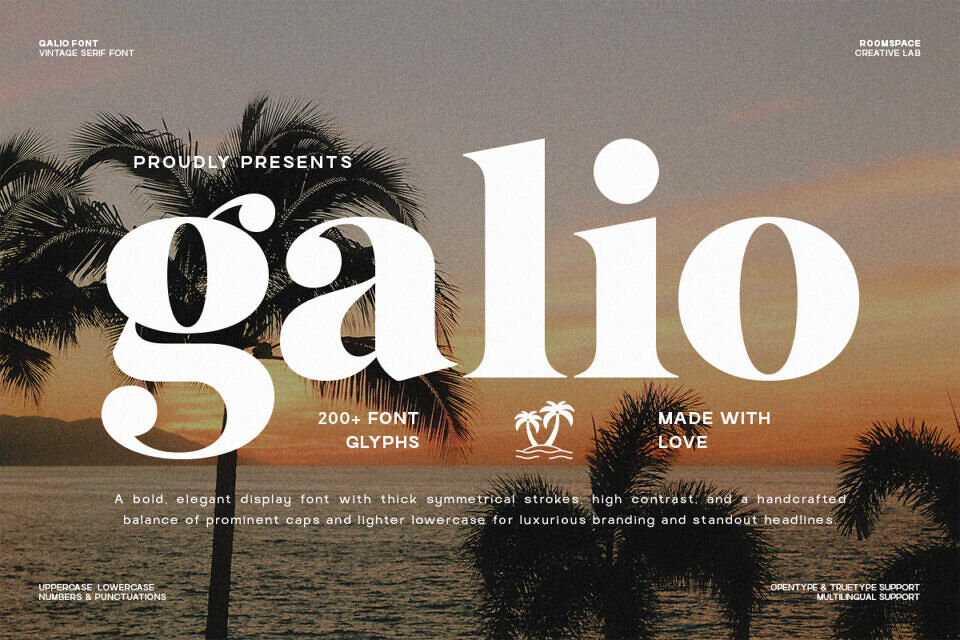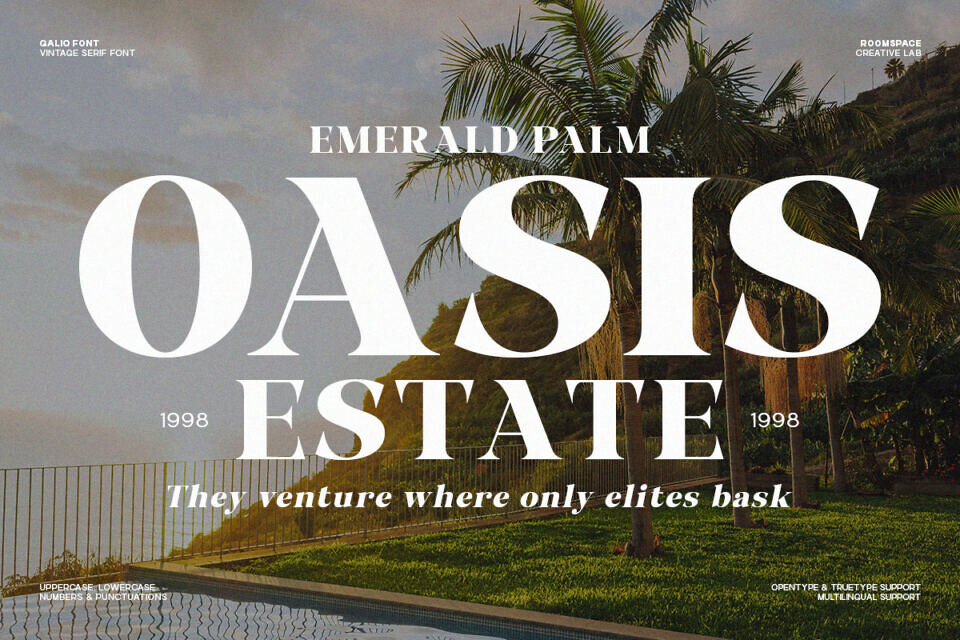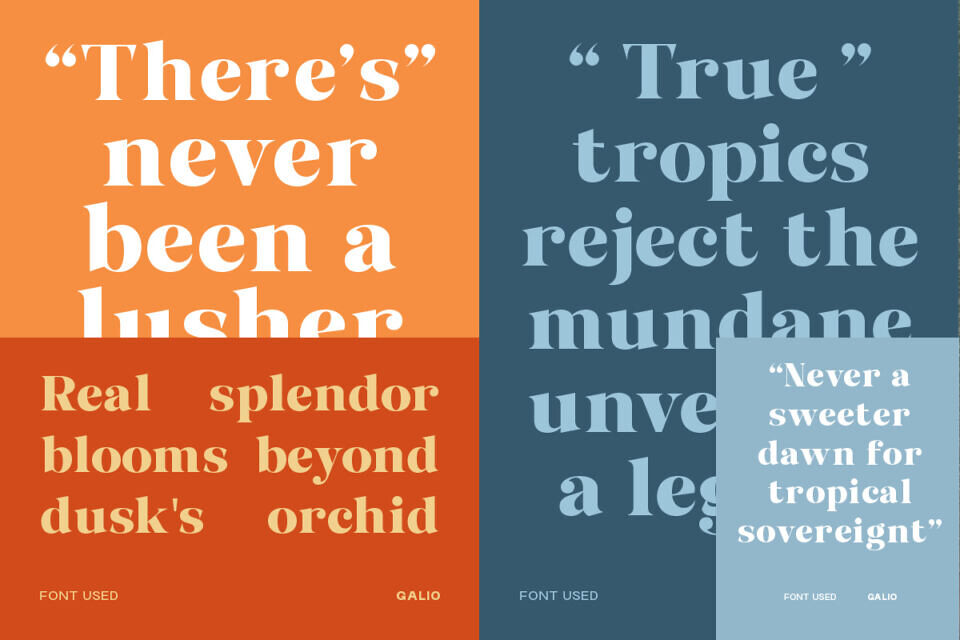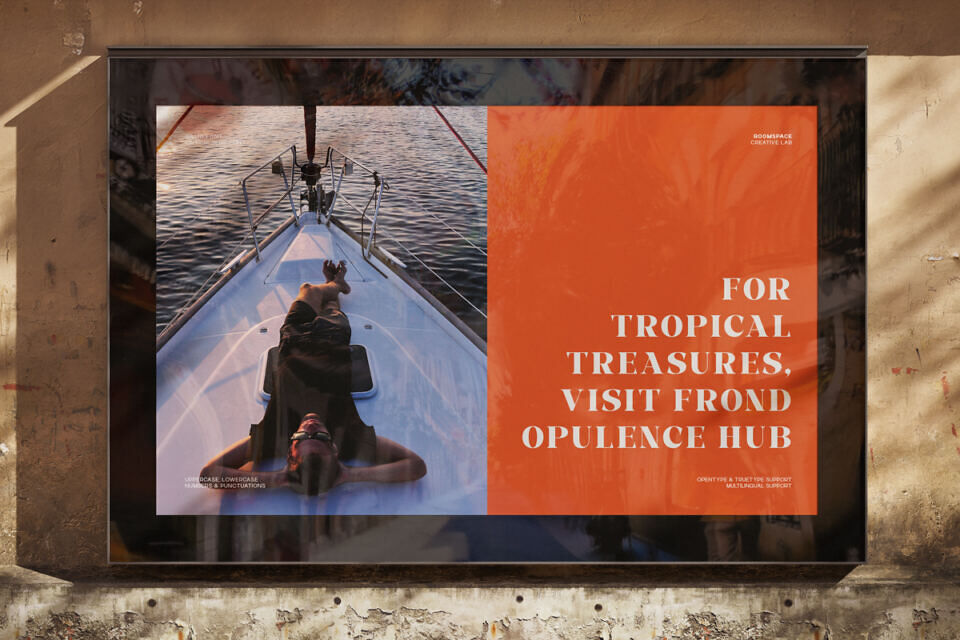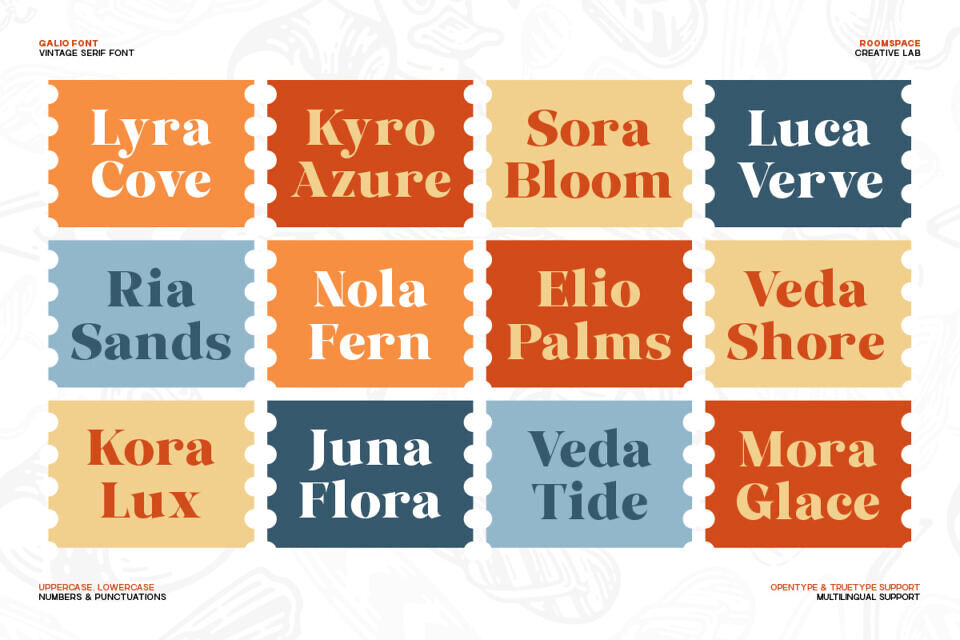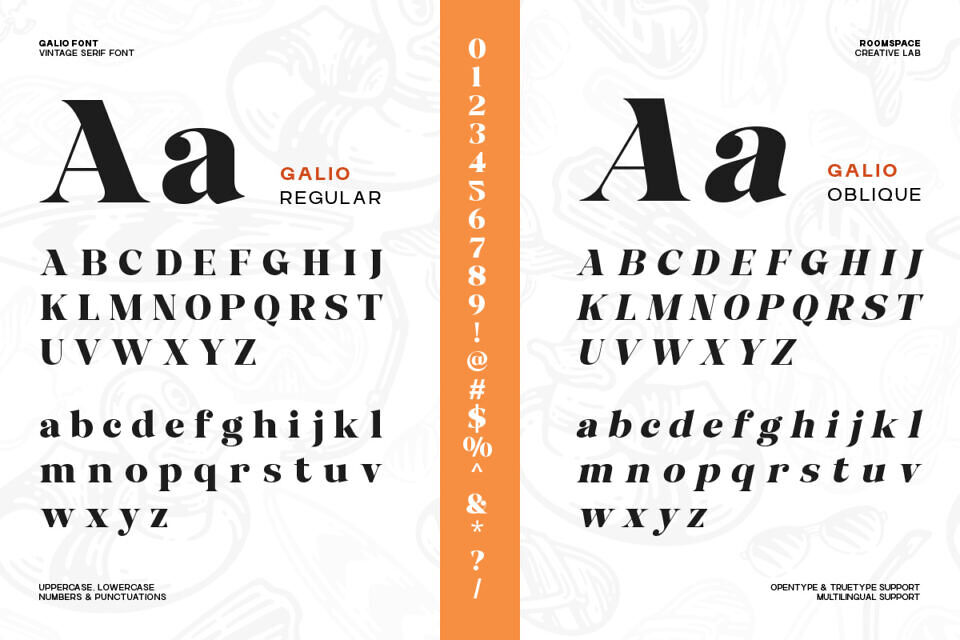
Galio is an elegant vintage serif display font designed to bring character, contrast, and timeless sophistication to modern design projects. Featuring bold symmetrical strokes, high contrast letterforms, and refined curves, Galio delivers a handcrafted yet polished aesthetic.
Perfect for logos, luxury branding, magazines, packaging, posters, and standout headlines, Galio balances expressive uppercase with lighter lowercase forms for strong visual hierarchy and premium readability.